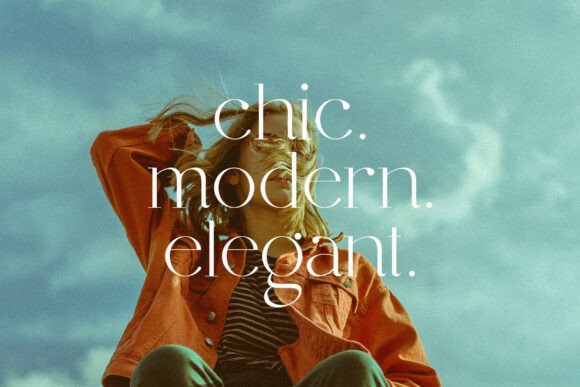
Marigold Font
Marigold is a modern and elegant serif font, designed with versatility in mind. Its refined lines and sophisticated style make it perfect for a variety of projects, including magazine headlines, logos, branding, and more. Whether for print or digital, Marigold adds a timeless, polished touch to any design.